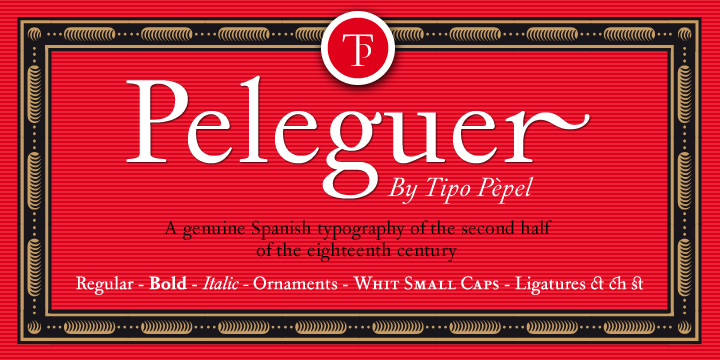
Peleguer Font is perfect for pilgrimage tourism branding, spiritual journey marketing, sacred route signage, religious travel campaigns, devotional publishing projects, contemplative retreat materials, heritage trail communications, sacred destination promotions, faith-based community messaging, and transformative experience marketing. Its pilgrimage character makes it ideal for projects requiring spiritual wandering and devotional visual appeal that celebrates sacred journeys and meaningful travels.
What makes Peleguer Font exciting is its profound ability to capture the essence of spiritual pilgrimage through letterforms that embody the devotional journey and transformative power of sacred travel experiences. The font features flowing, path-like curves with contemplative proportions that evoke the meditative rhythm of pilgrimage walking while maintaining excellent readability for spiritual communications. Its pilgrimage character transforms ordinary text into expressions of sacred purpose that inspire viewers to embark on their own transformative journeys of faith and self-discovery.
The Peleguer Font family includes Regular, Bold, Light, Sacred, Journey, Devotional, and Spiritual variations. Each style preserves the font's pilgrimage essence while offering different levels of contemplative intensity and spiritual weight for creating authentic sacred graphics. The comprehensive character set includes pilgrimage symbols, sacred ornaments, devotional decorations, and spiritual glyphs essential for genuine religious travel and faith-based typography projects.
Religious organizations and spiritual travel brands consistently choose Peleguer Font Free Download for projects demanding authentic pilgrimage typography solutions. The font's devotional character instantly establishes spiritual credibility while ensuring clear communication across faith-based marketing channels. Its versatility spans from subtle pilgrimage touches to bold statements that celebrate the transformative power of sacred journeys and the profound spiritual growth that comes from devotional travel experiences.
Whether you're developing spiritual brand identities, creating pilgrimage marketing materials, or designing sacred communications, Peleguer Font provides the perfect combination of devotional authenticity and contemporary functionality. The font's spiritually crafted letterforms ensure genuine pilgrimage character while maintaining excellent performance across various religious applications and faith-based business communications.
The sacred heritage of Peleguer Font makes it exceptional for creating meaningful connections with audiences seeking spiritual growth and transformative experiences. Its pilgrimage precision and devotional appeal work seamlessly across traditional religious materials and modern digital spiritual platforms. The font performs contemplatively in both large-scale sacred displays and intimate devotional communications.
Embark on sacred journeys with Peleguer Font and discover how authentic pilgrimage typography can enhance your spiritual projects with genuine devotional appeal and transformative sophistication. This remarkable typeface combines pilgrimage tradition with contemporary functionality, making it indispensable for spiritual organizations celebrating the eternal human quest for meaning and the transformative power of sacred journeys.